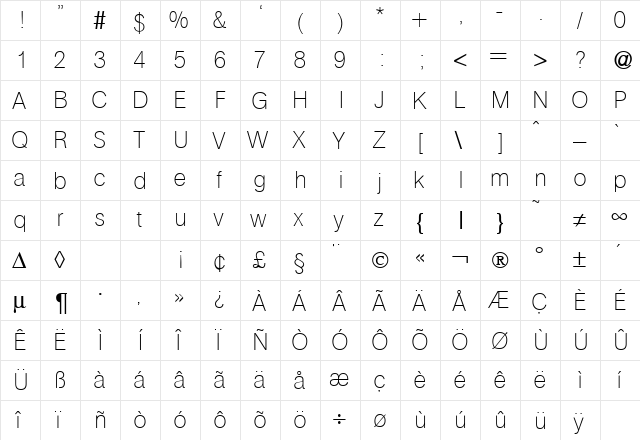
AtkinsUltraLight Regular Font Preview
AtkinsUltraLight Regular
Design Context for AtkinsUltraLight Typeface
AtkinsUltraLight is a composed and adaptable typeface that performs quietly and consistently across a wide range of design contexts. Its slender proportions lend an understated elegance to any composition.